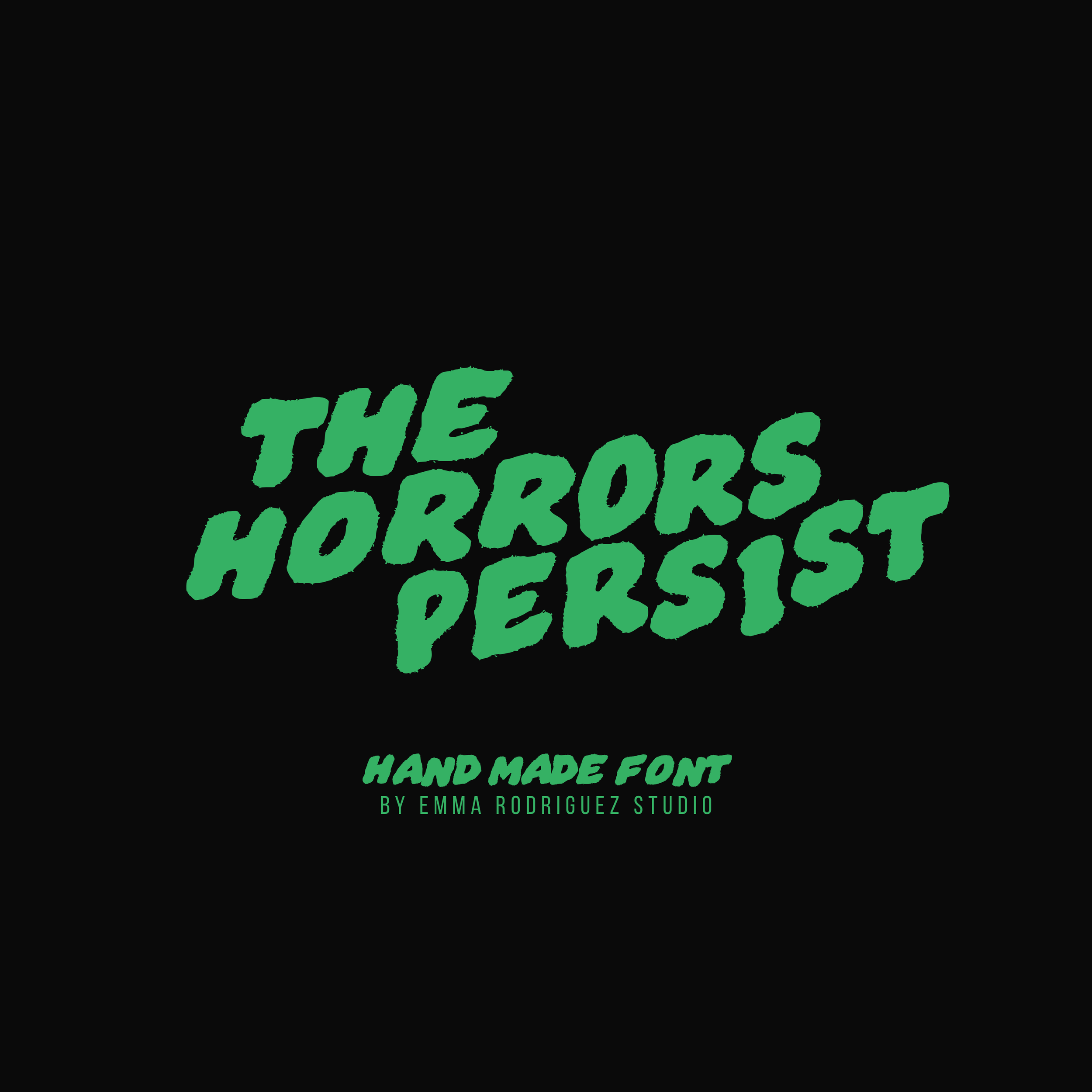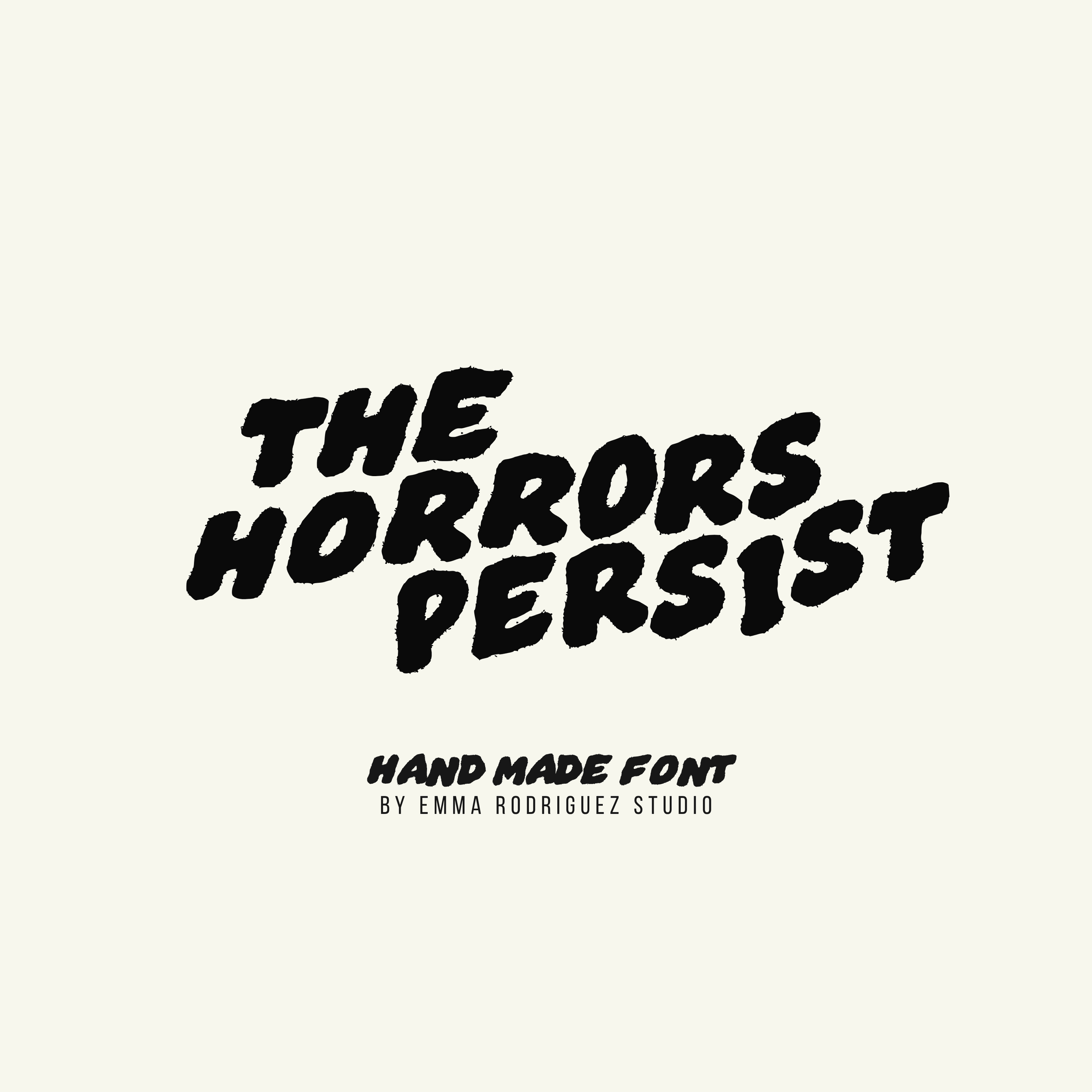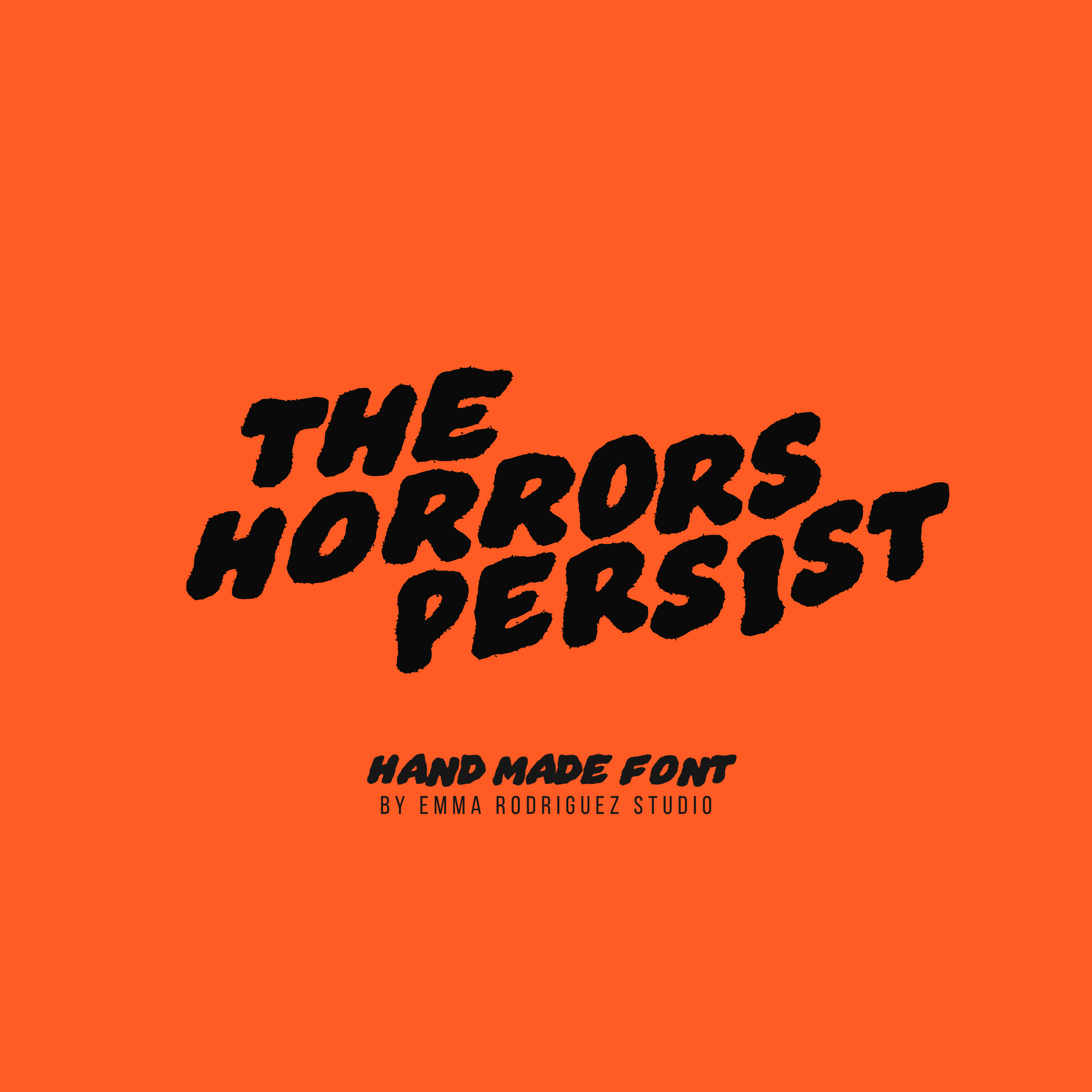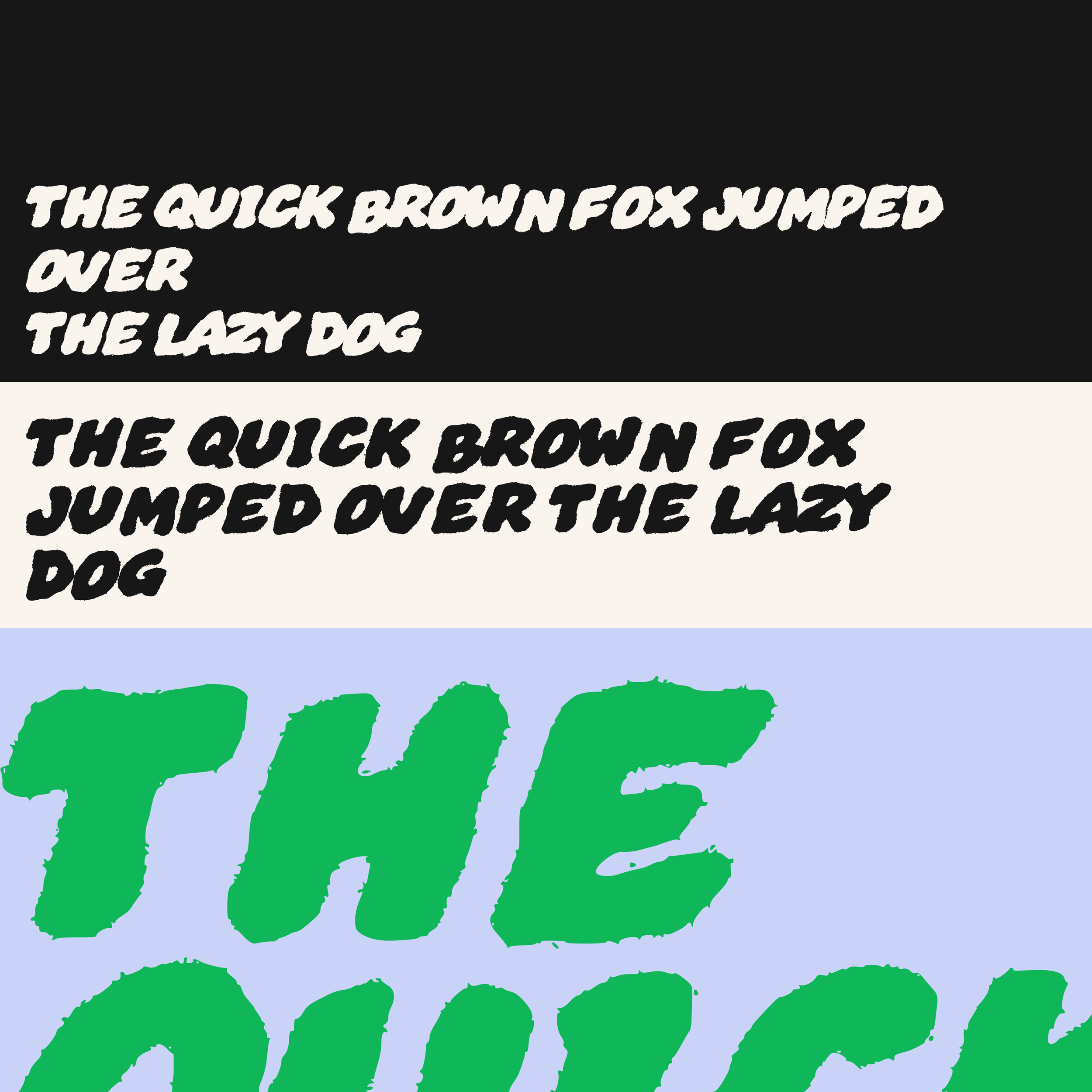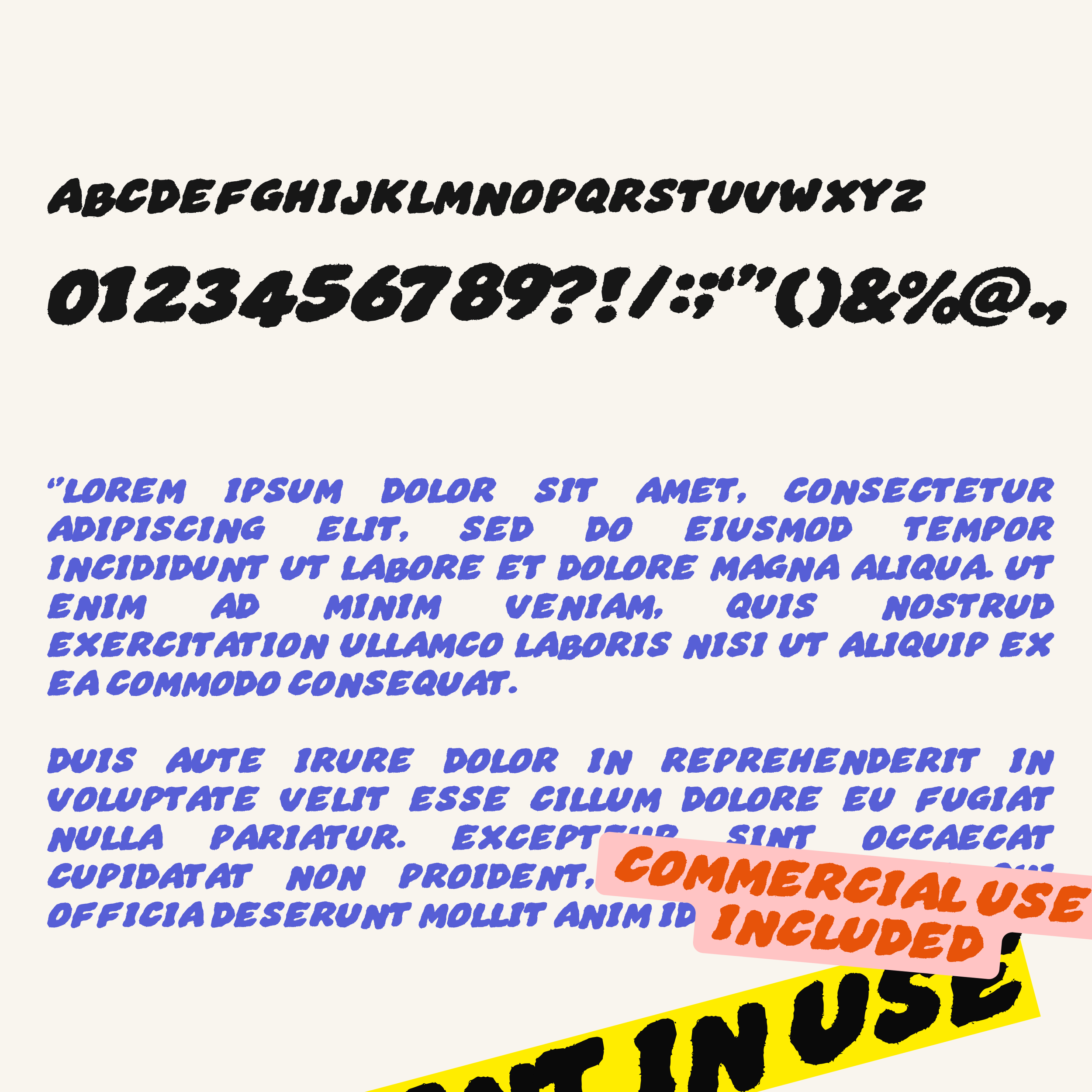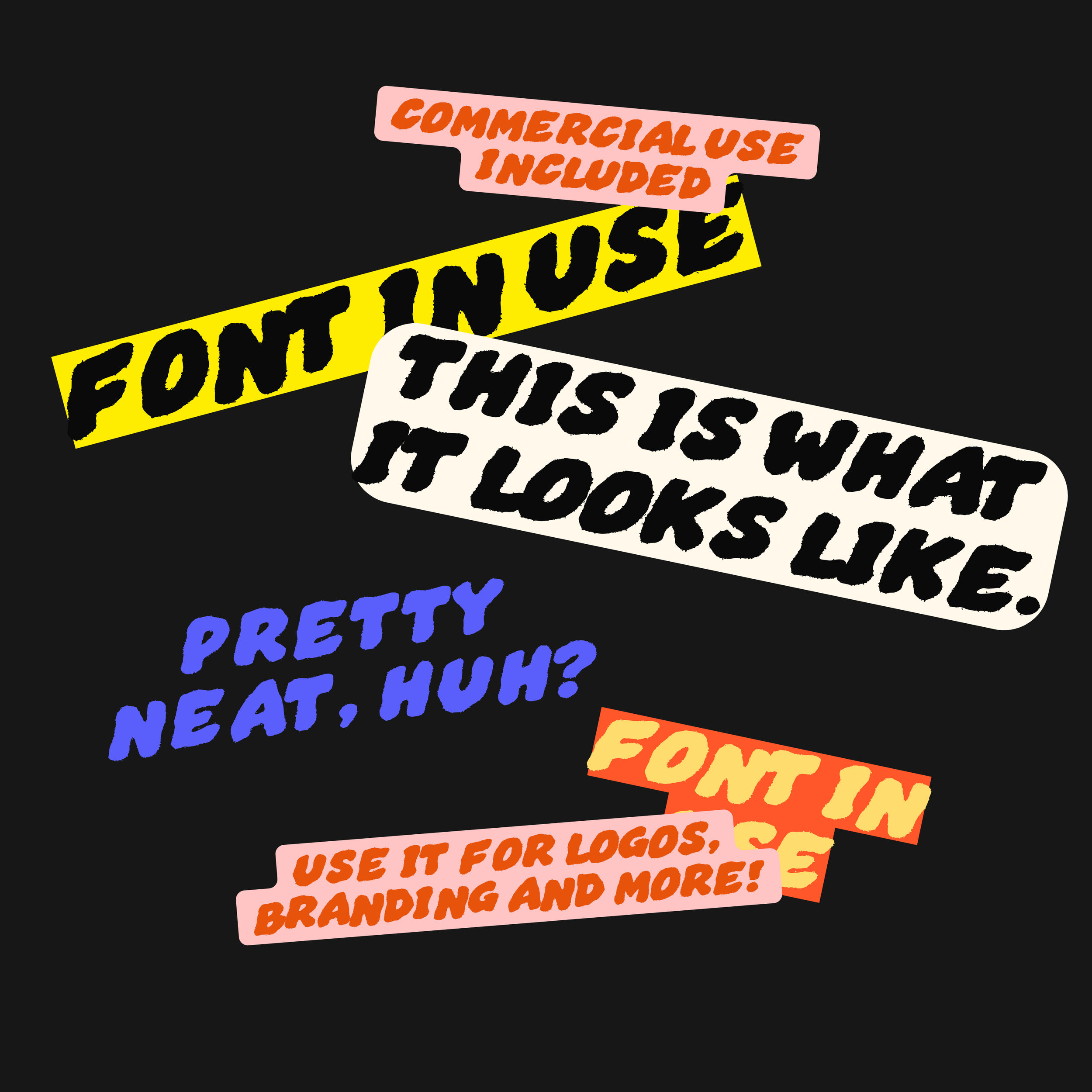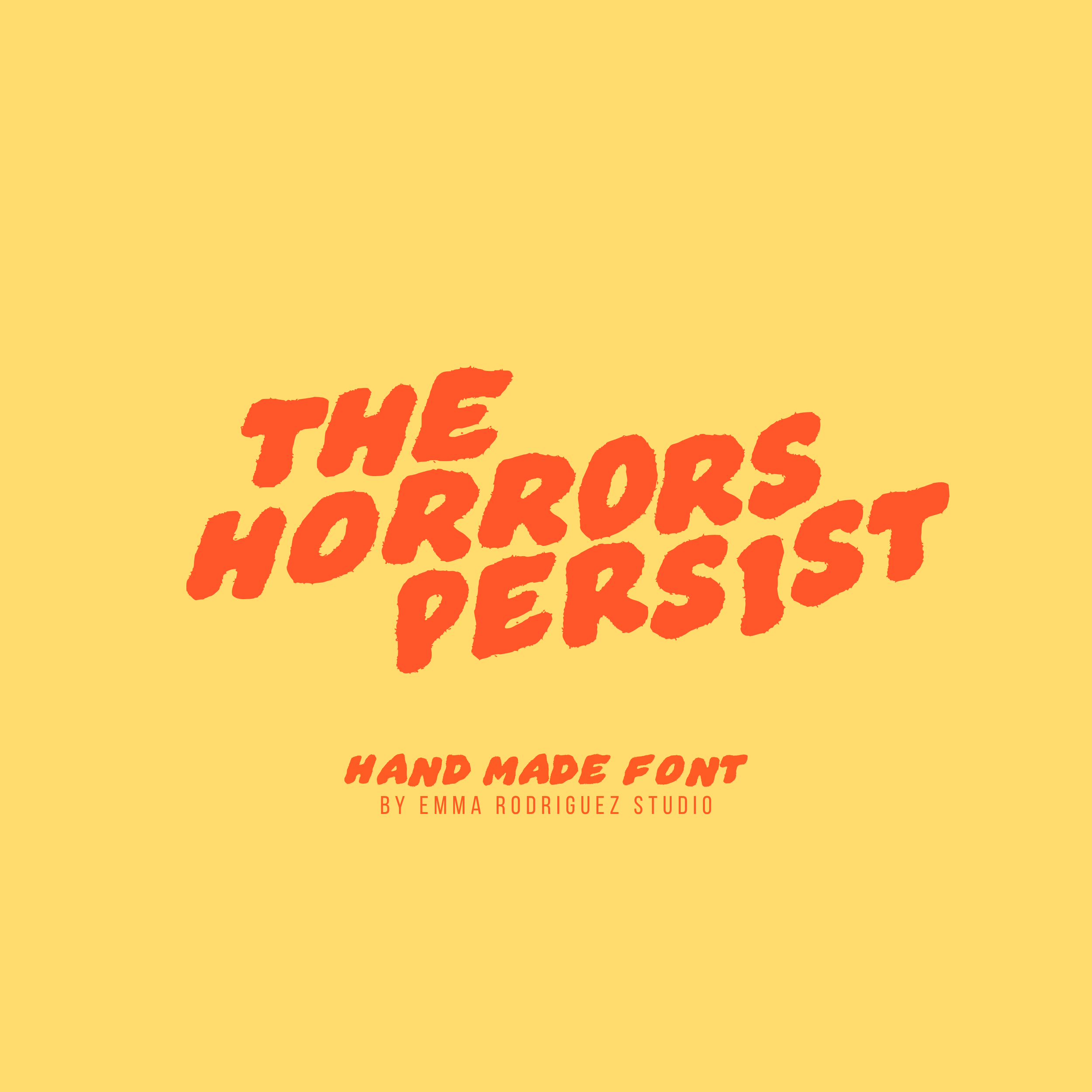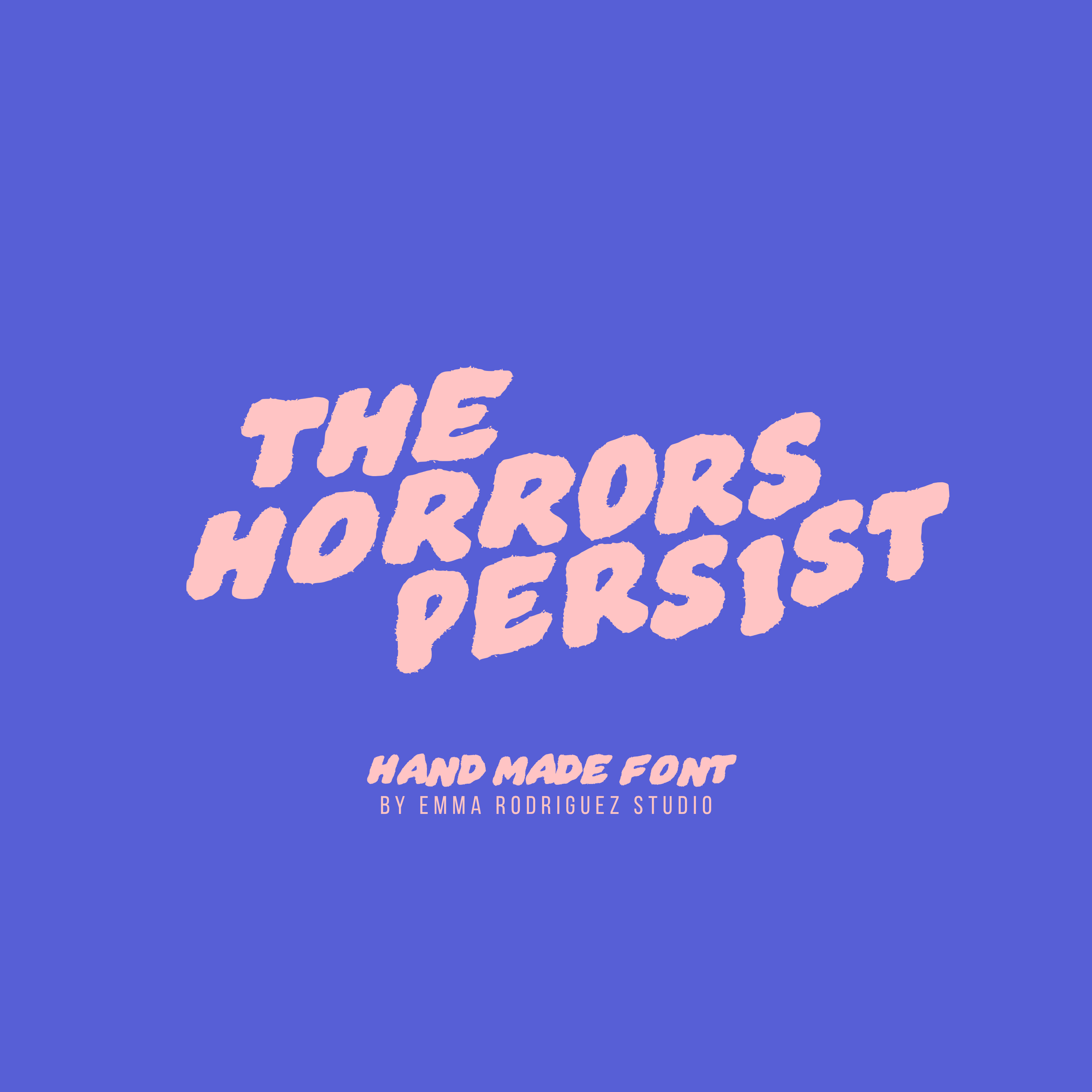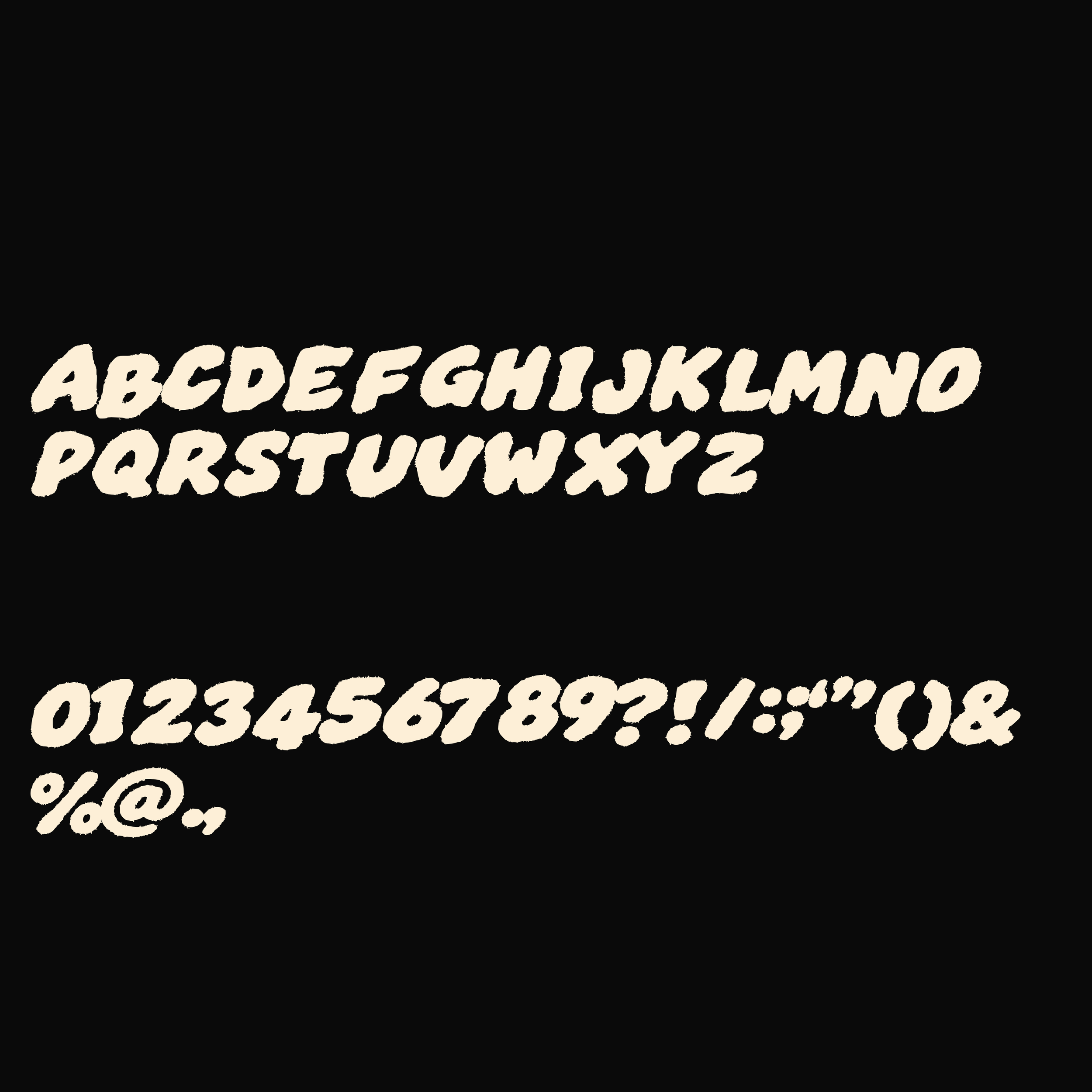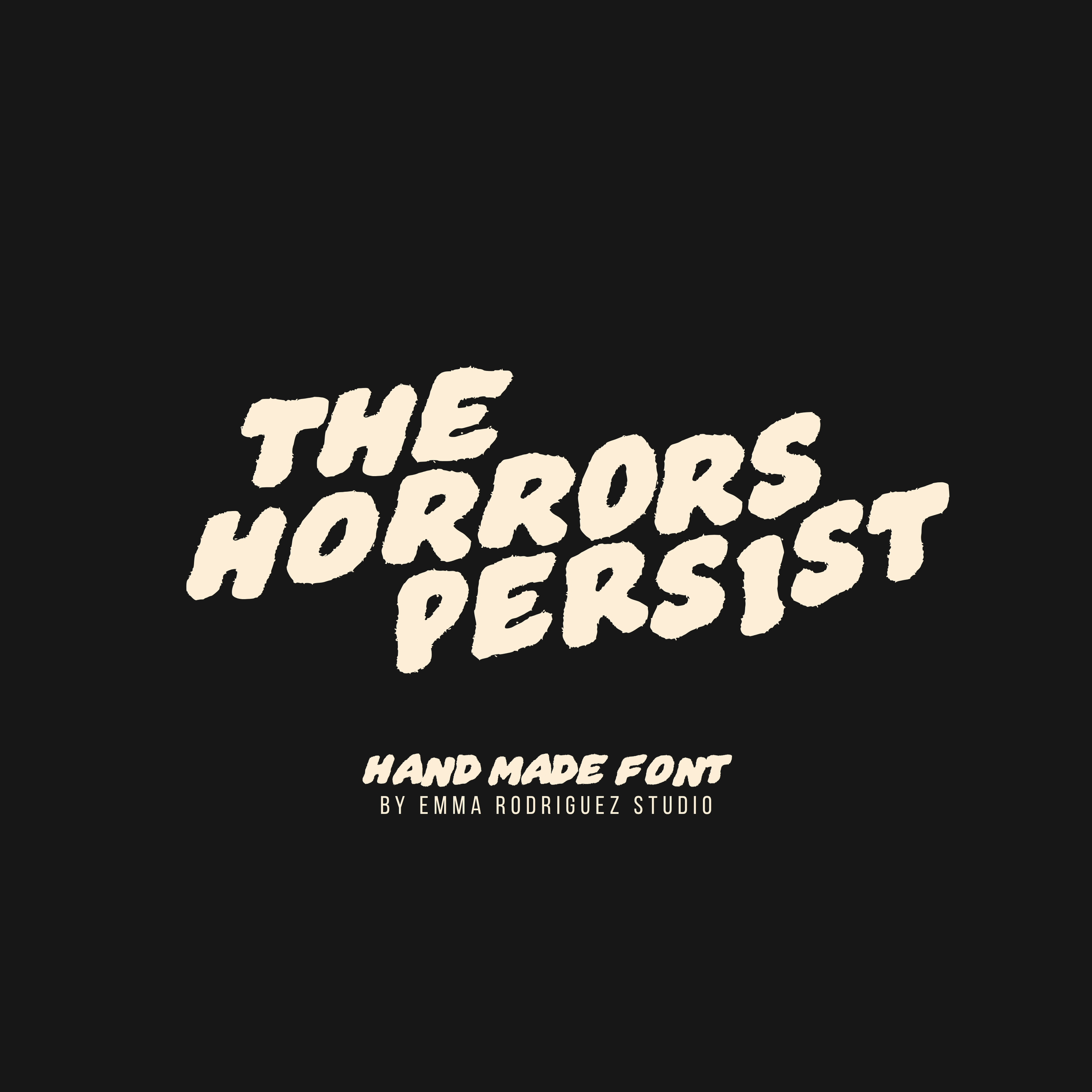
The Horrors Persist Font - Grungy Rough Thick Type
The Horrors Persist is a bold hand drawn display font with rough edges, chunky shapes and an intentionally loose, slightly frantic feel. The slanted letterforms and imperfect construction give it the energy of painted signs, underground posters, DIY graphics and lettering that was definitely not drawn with a ruler.
Its rough, slightly sinister personality also makes it a strong choice for Halloween design, creepy October graphics, autumn campaigns and alternative seasonal artwork. Think Halloween gig posters, spooky packaging, horror-inspired branding, October event graphics and designs that need something more interesting than a predictable gothic typeface.
This is an all caps font, designed for graphic designers, illustrators, artists, poster makers, musicians, clothing brands, branding designers, small businesses and Etsy sellers looking for typography that feels raw, expressive and a little unruly.
It works especially well with contemporary grunge, punk, alternative, horror-inspired and handmade design styles where clean geometric typography feels far too sensible.
Perfect for:
• Halloween posters and graphics
• October and autumn campaigns
• Creepy and horror-inspired design
• Gig posters and event graphics
• Album covers and record sleeves
• Posters and art prints
• Alternative branding
• Streetwear and apparel
• Zines and independent publishing
• Editorial layouts
• Packaging design
• Stickers and merchandise
• Social media graphics
• Statement typography
• All caps characters
Please note that The Horrors Persist is intentionally handmade and imperfect. Letterforms, spacing, proportions, alignment and overall form may vary throughout the character set. Rough edges, uneven spacing and irregular shapes are deliberate features rather than errors, and some manual kerning or letter placement may be useful depending on your layout.
Fonts by Emma Rodriguez Studio are made to have personality. Expect naive shapes, wonky details, playful imperfections and type that doesn’t take itself too seriously. They’re not designed for clean, minimal branding. They’re for bold, quirky, maximalist projects that need something a little stranger, sillier and more expressive.